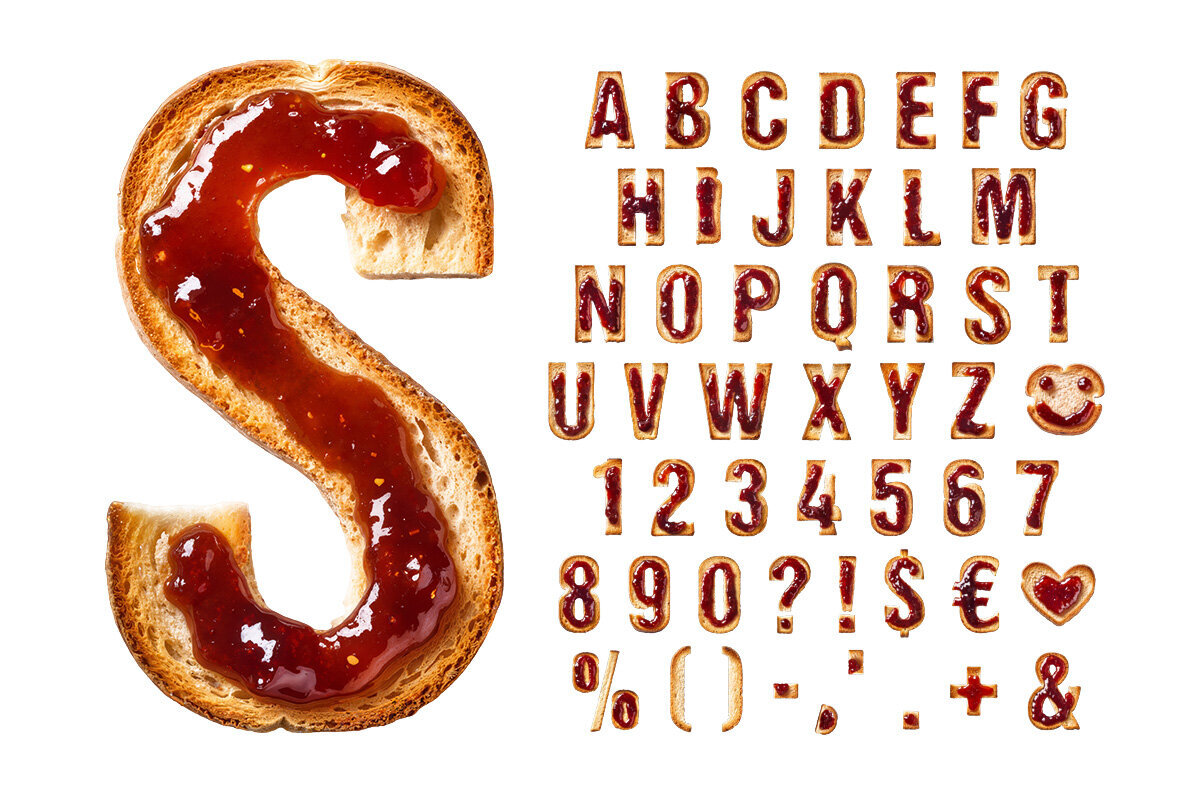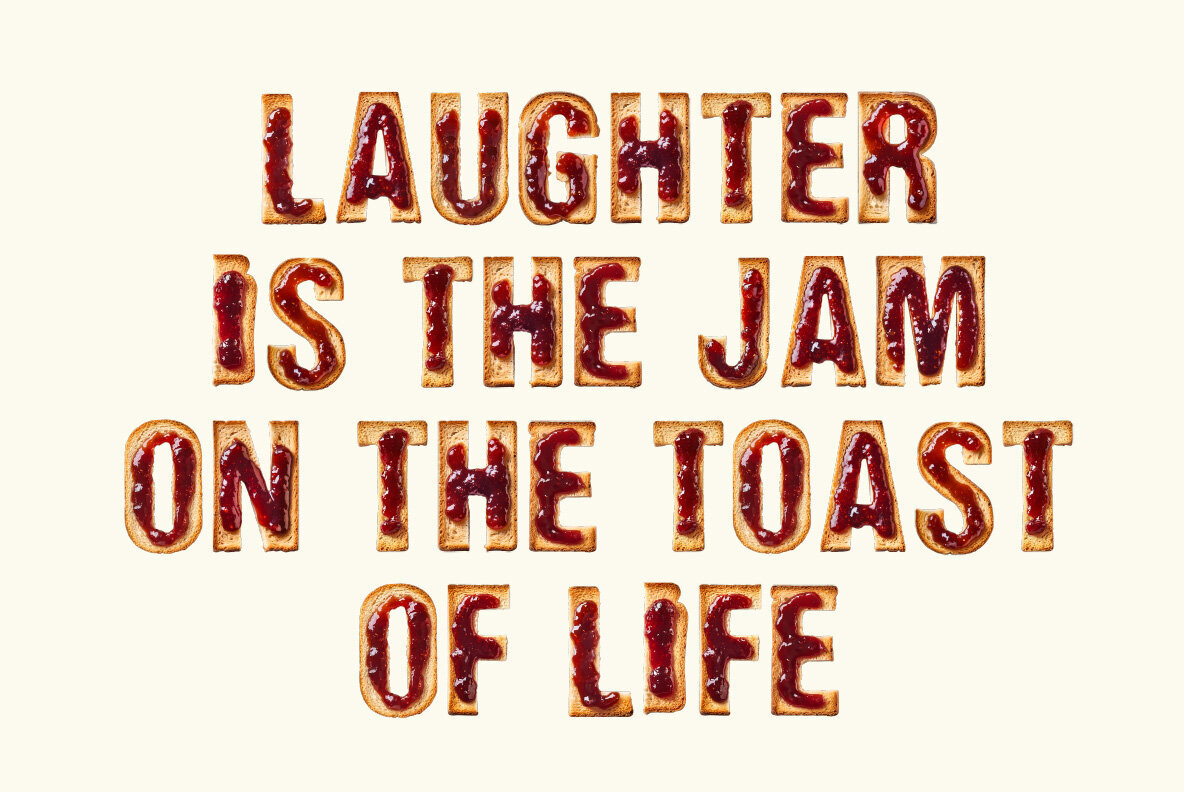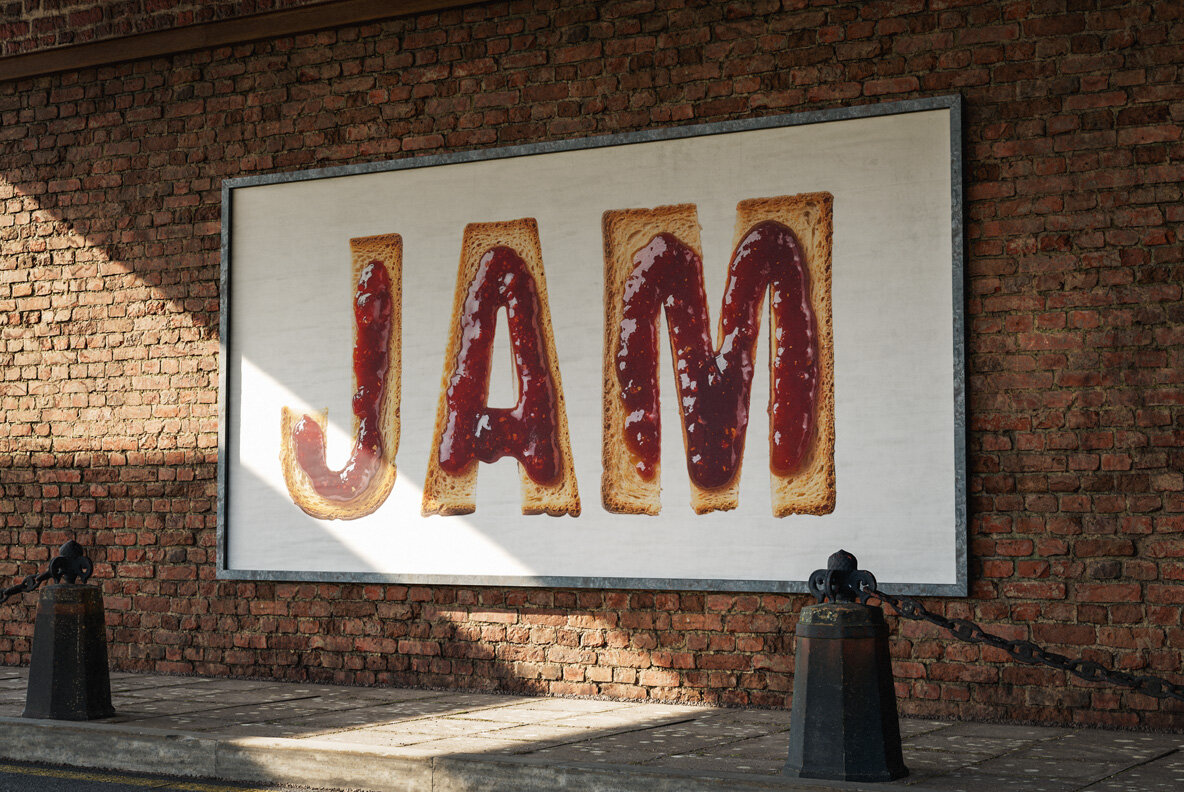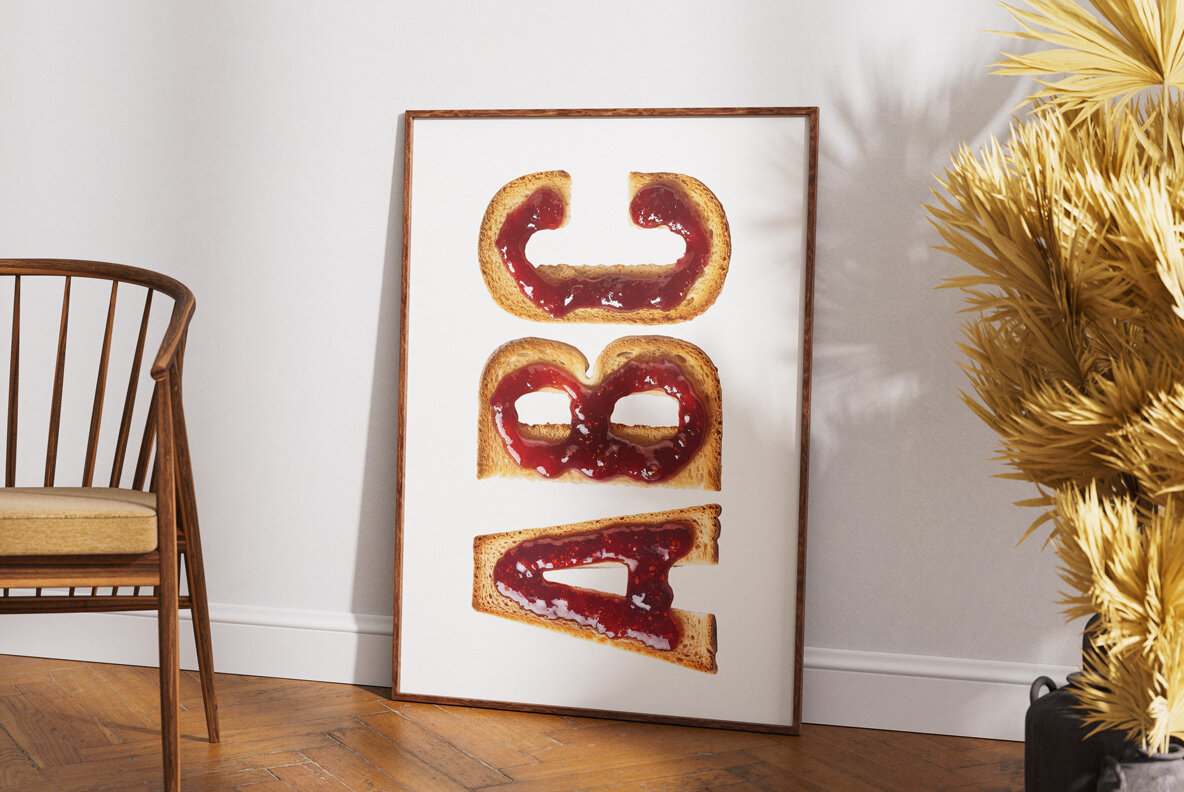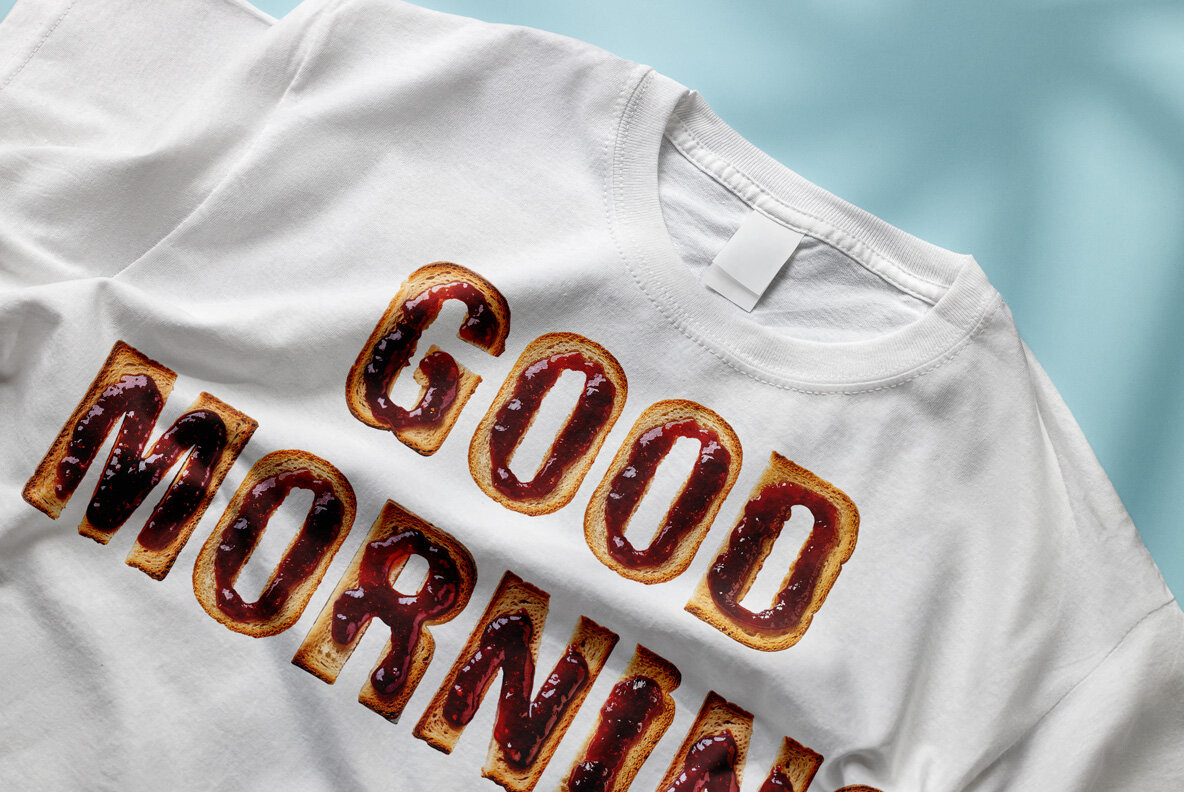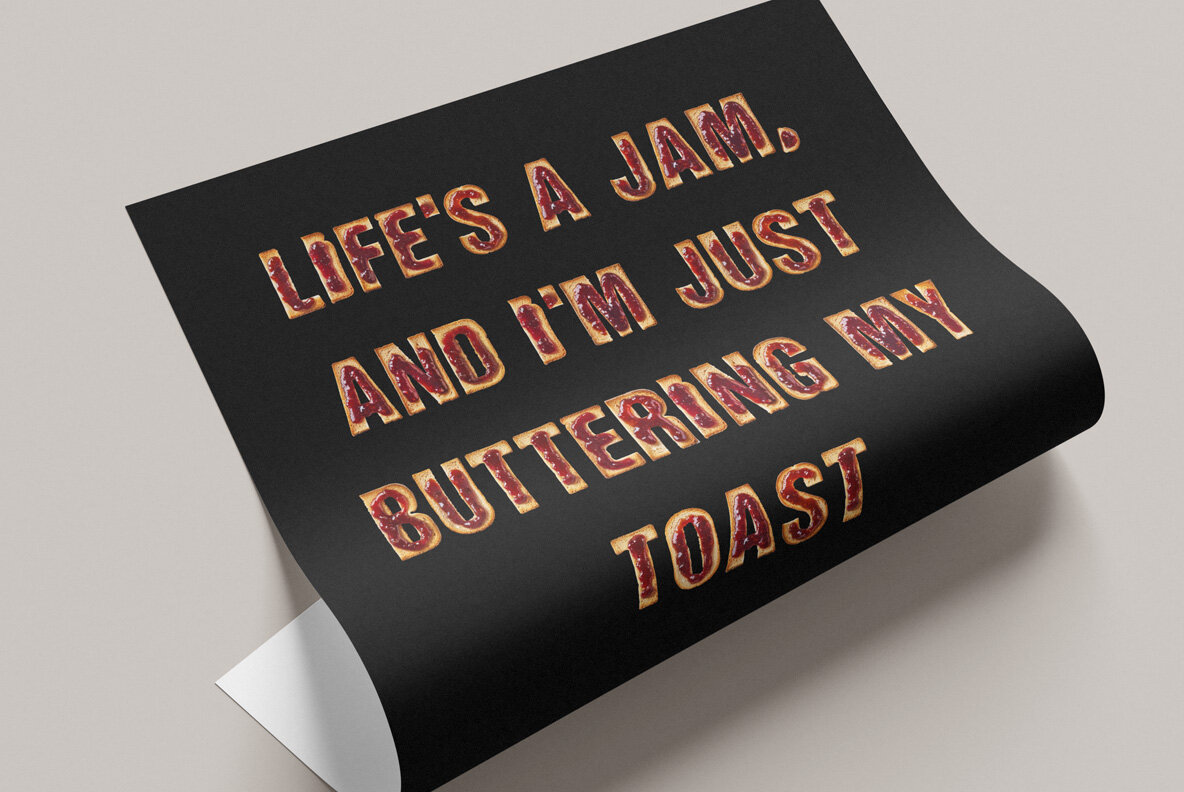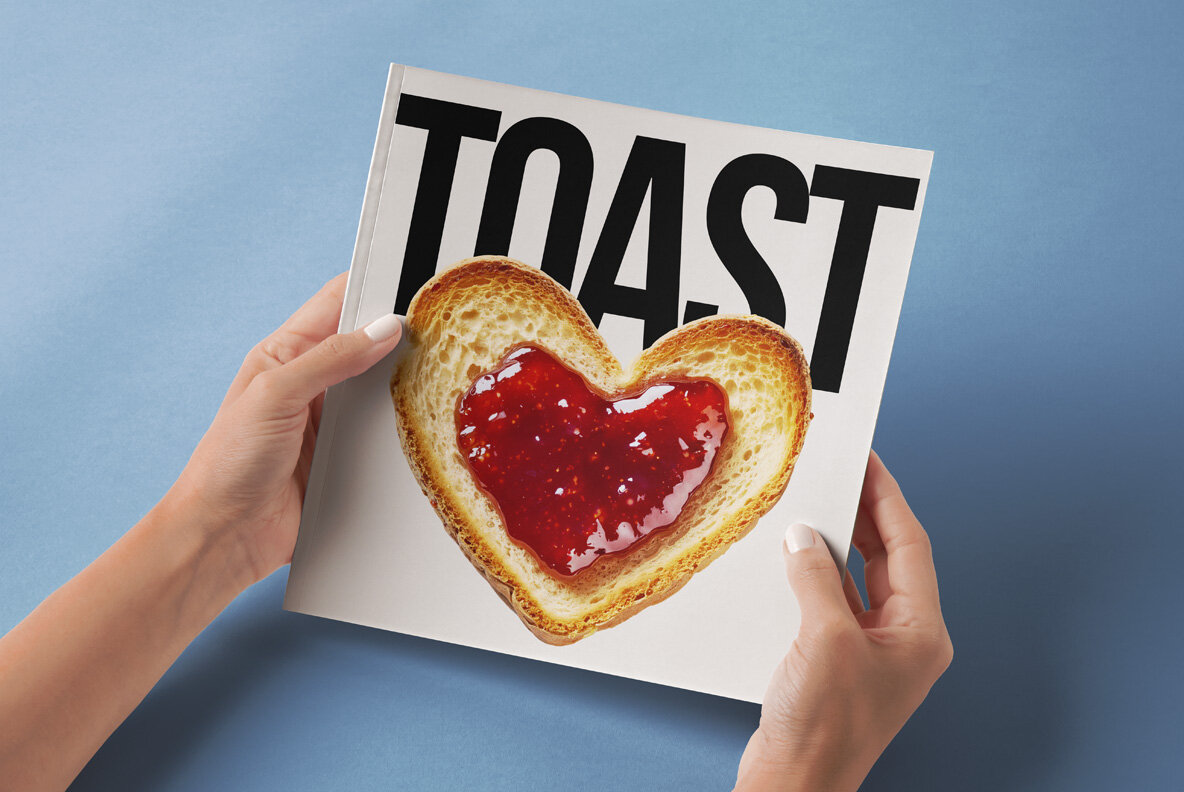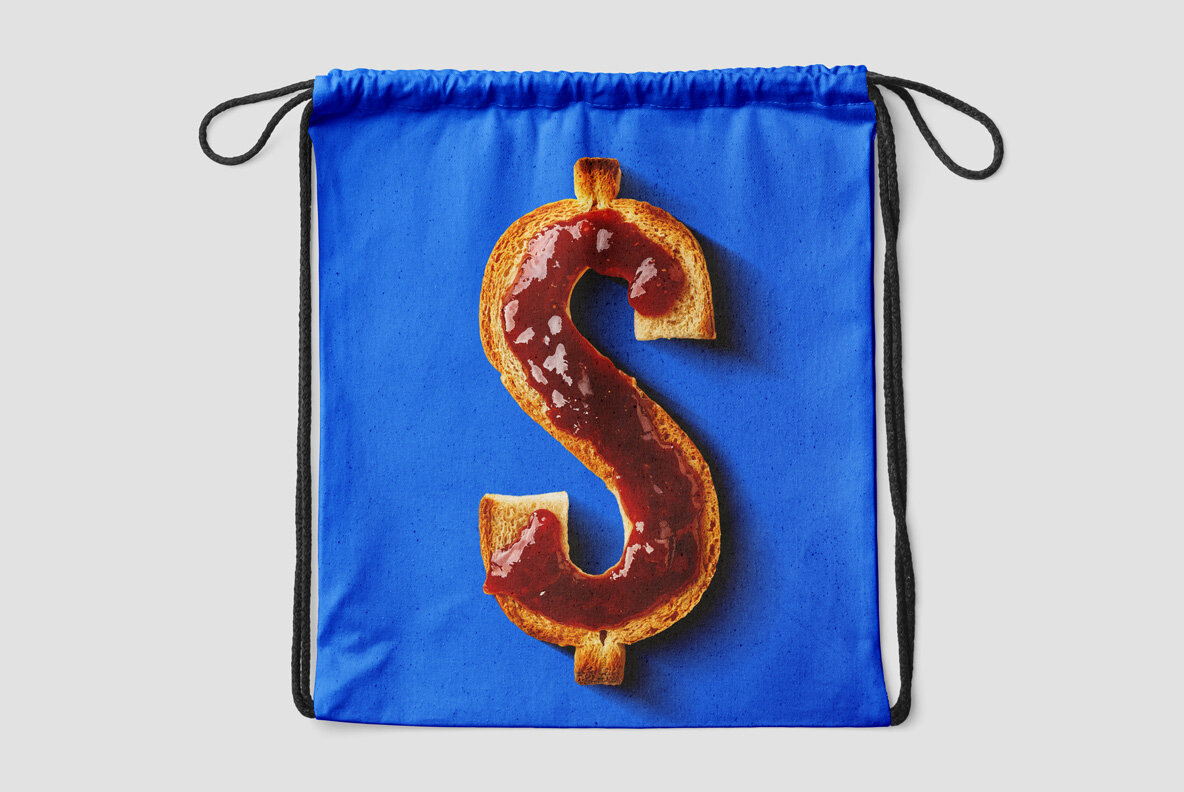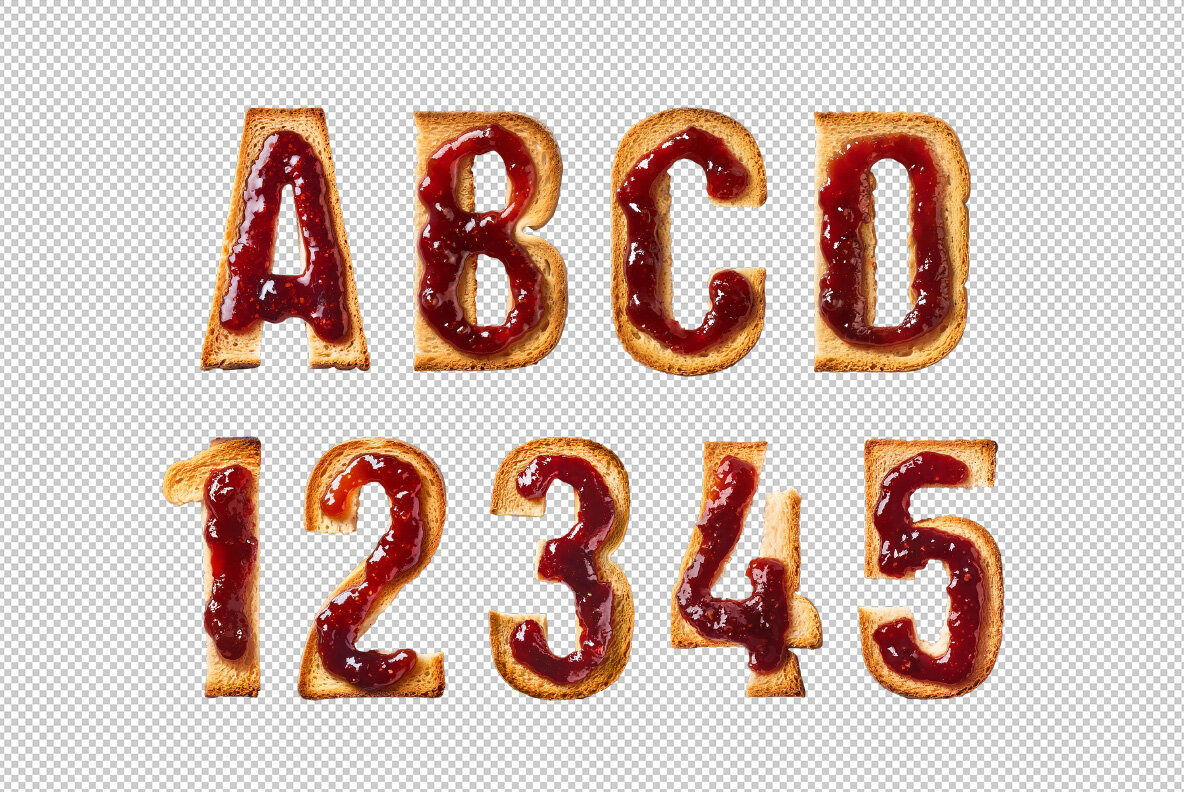
Jam on Toast Font is a vibrant, high-definition color OpenType-SVG font perfect for adding a splash of creativity to your design projects. It includes uppercase characters, numerals, and essential punctuation marks, with a draw height of approximately 800 pixels, ensuring each letter stands out. The color OpenType format allows for outstanding visual appeal, but requires compatible software, such as Photoshop, Illustrator, InDesign, QuarkXPress, Keynote, PowerPoint, and Word, to showcase its full potential.
In addition to its OpenType format, each character is provided as a separate .png file with a transparent background, making it accessible for use in any graphics software. With 50 high-resolution image files (4000x4000px), this package covers the complete alphabet, numbers, and a selection of punctuation marks. While the font itself doesn't include extended language support due to the nature of OpenType files, all punctuation and accents are available as individual image files, offering flexibility to enhance your text manually. This comprehensive set is an excellent resource for designers seeking uniqueness in their typographic endeavors.